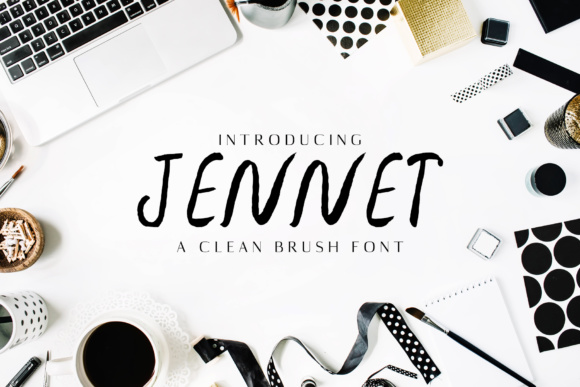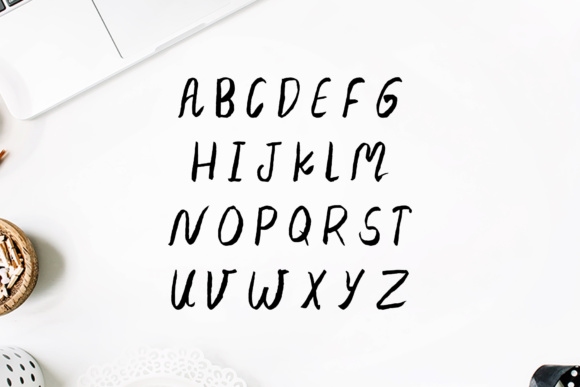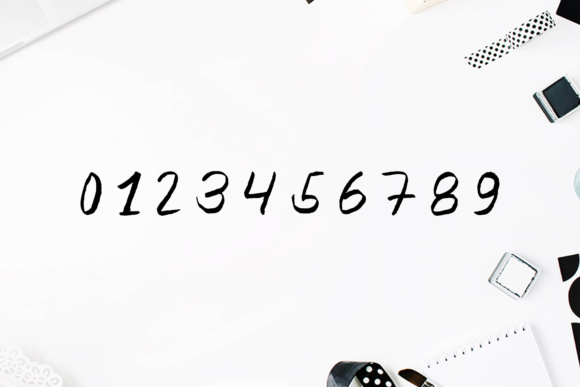
About Jennet Family Font
Jannet Script is a clean, classy, beautiful handwritten brush style font that contains 3 weights. Jennet is perfect for creating authentic hand-lettered text quickly & easily. Jennet can be used for various purposes such as branding, websites, clean designs, logos, headlines, banners and templates and much more! Jennet is in uppercase style only.